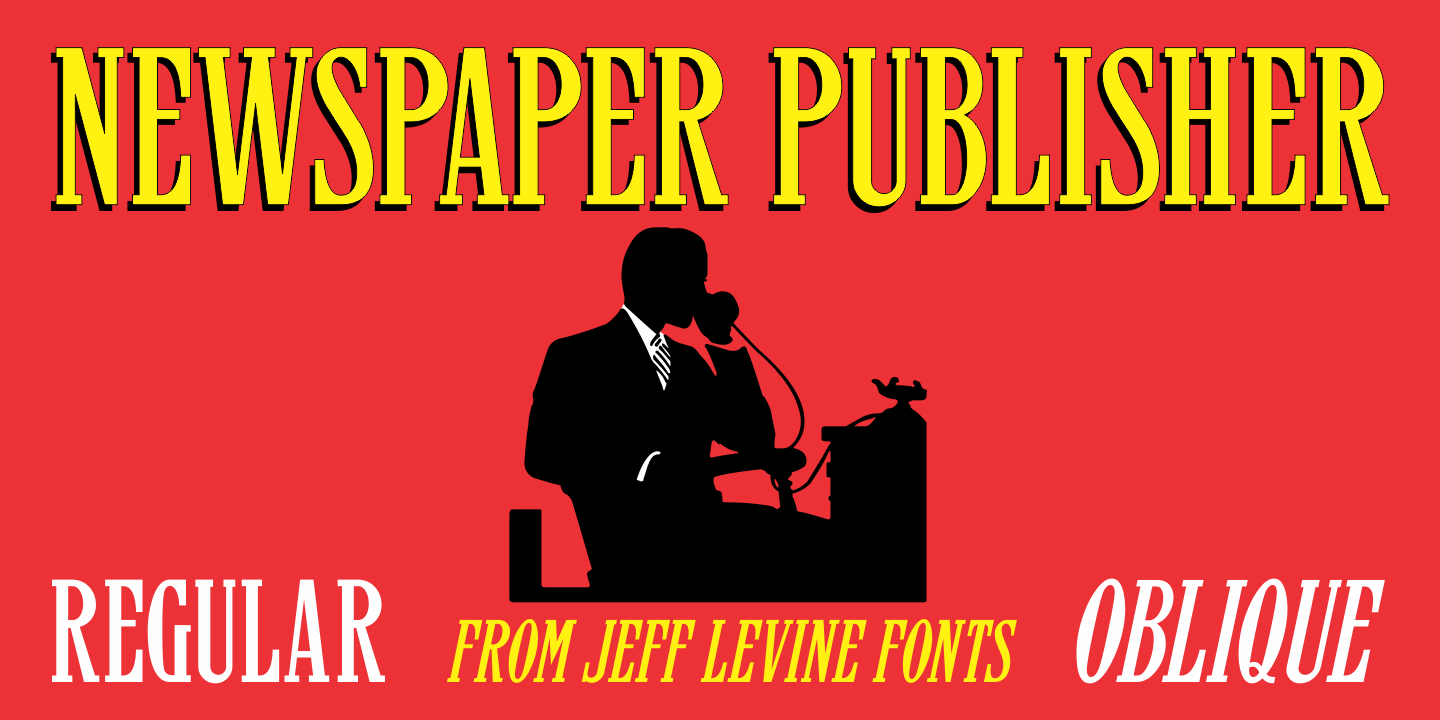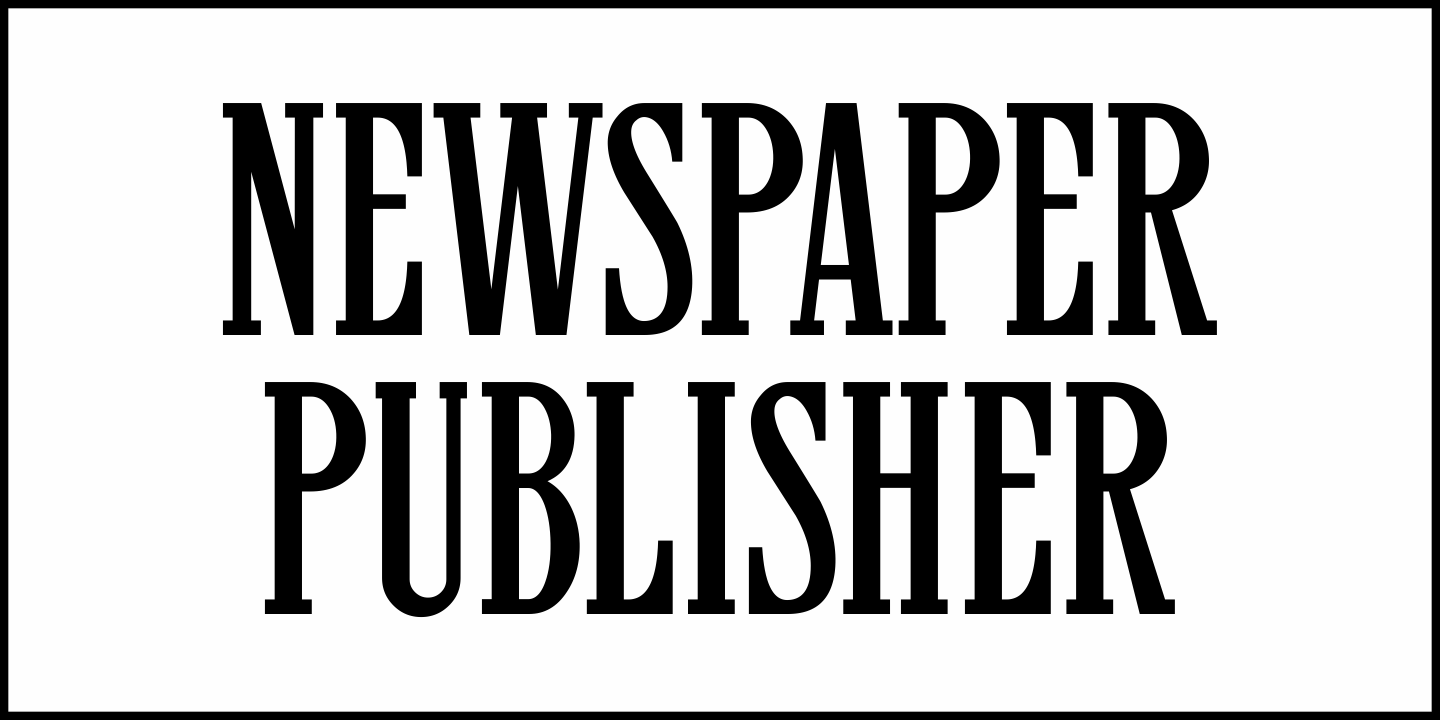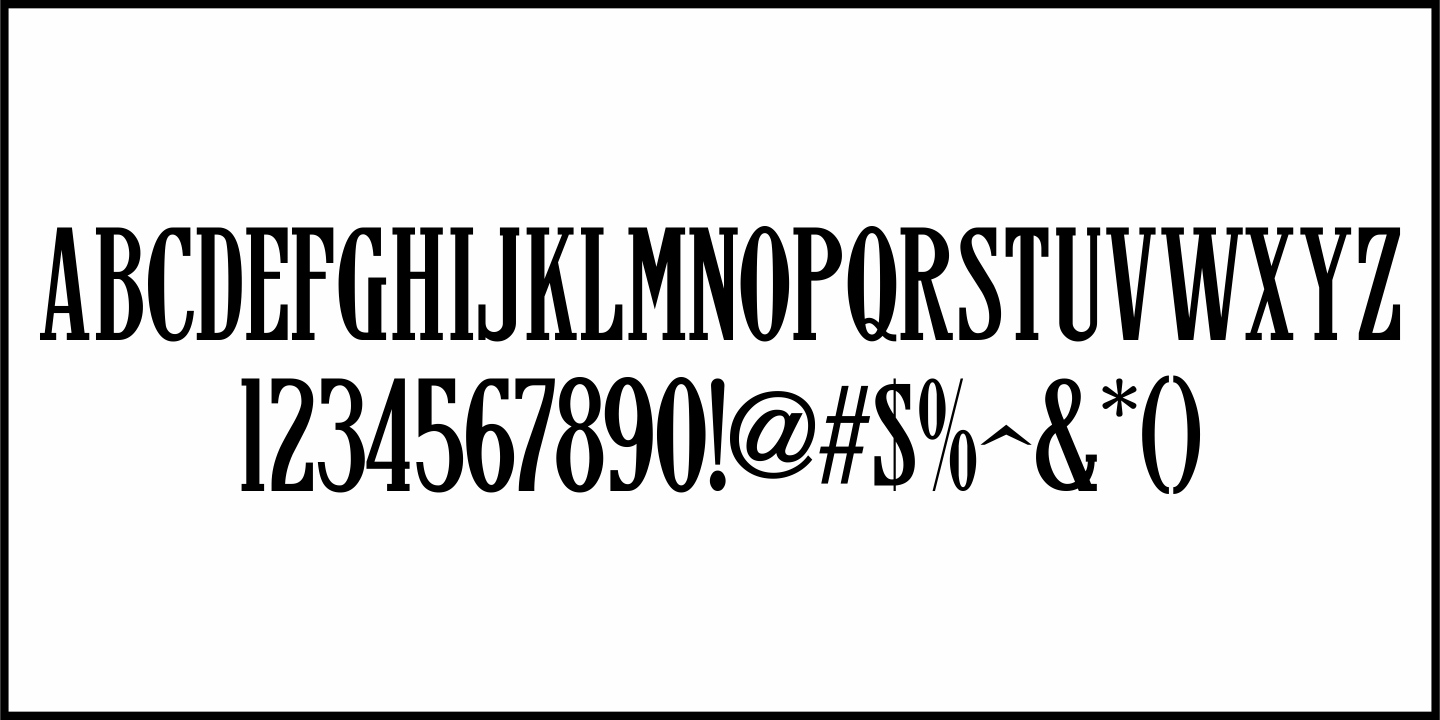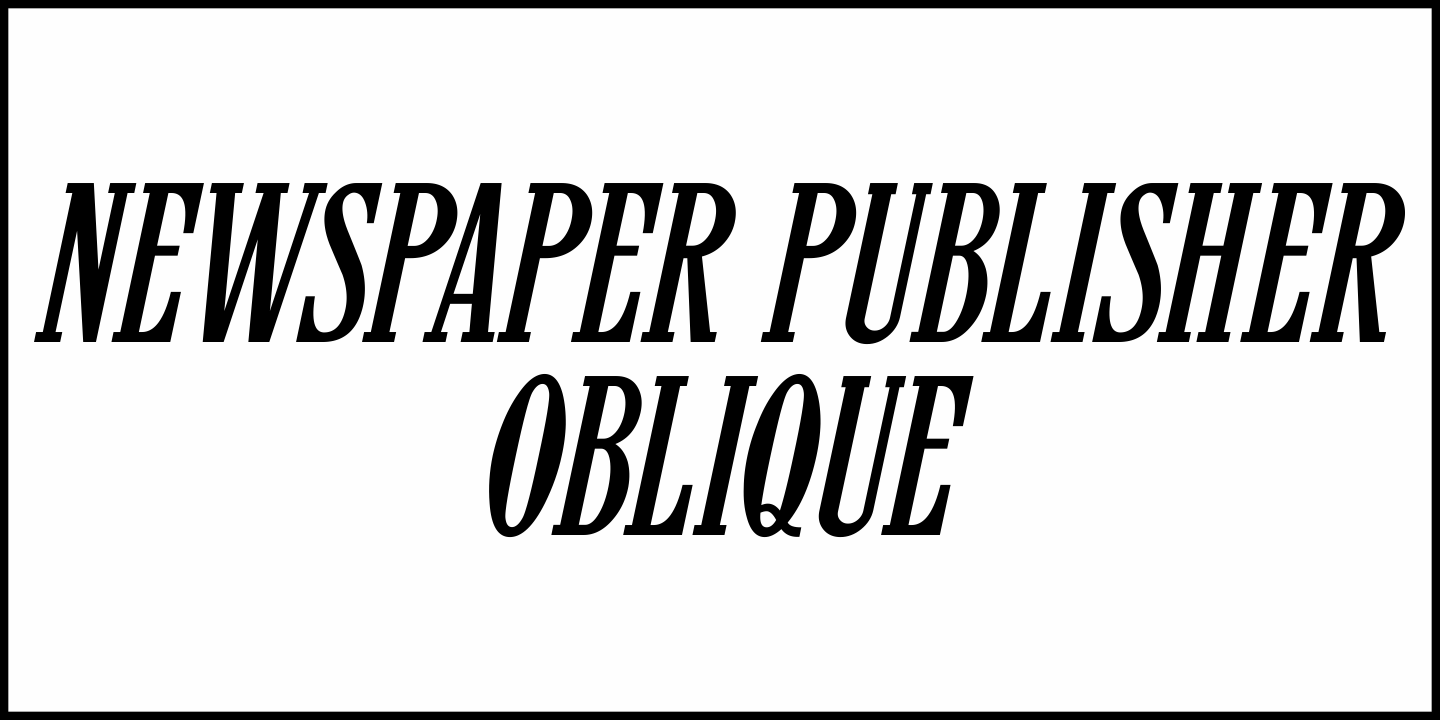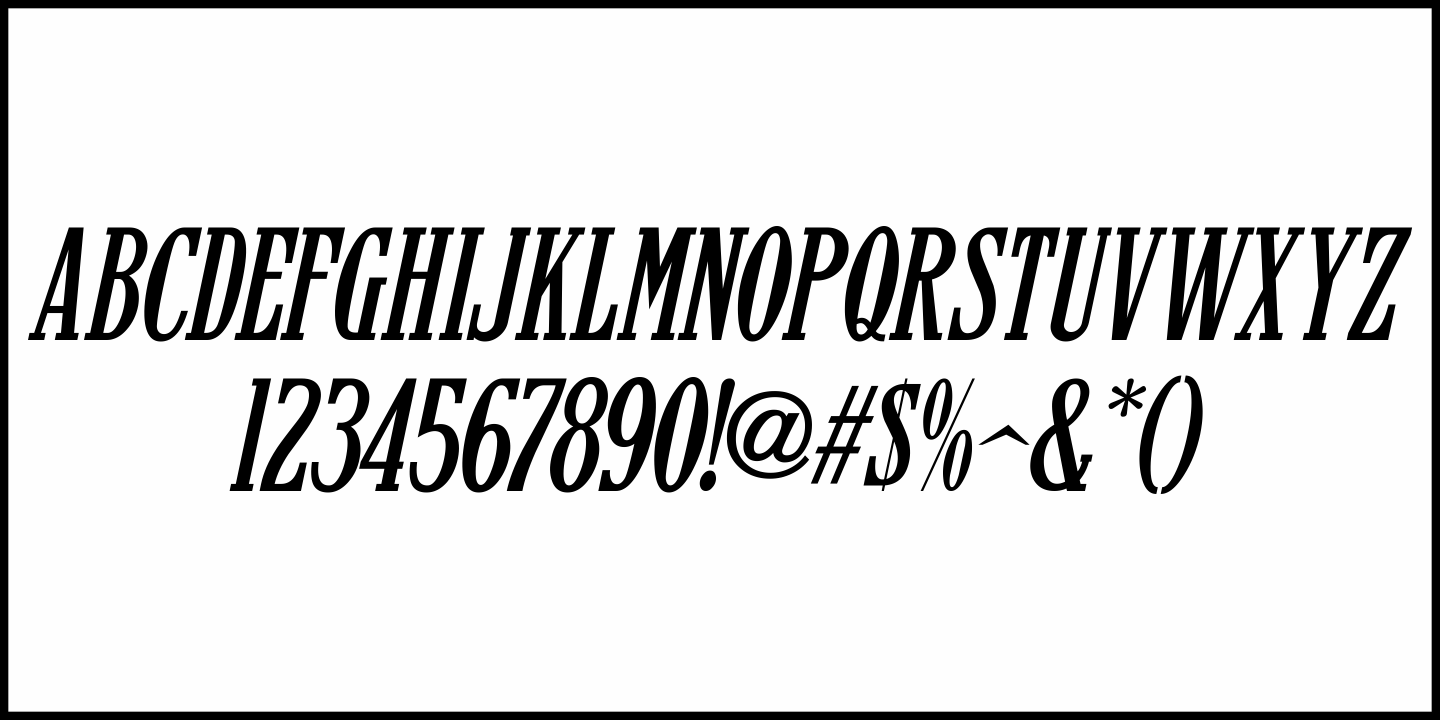
Newspaper Publisher
The Logansport, Indiana Pharos-Observer dated June 12, 1917 had the following headline running across its front page: “American Steamer Sunk by German U Boat”.
The condensed slab serif typeface used to set that headline has been recreated digitally as Newspaper Publisher JNL, and is available in both regular and oblique versions.